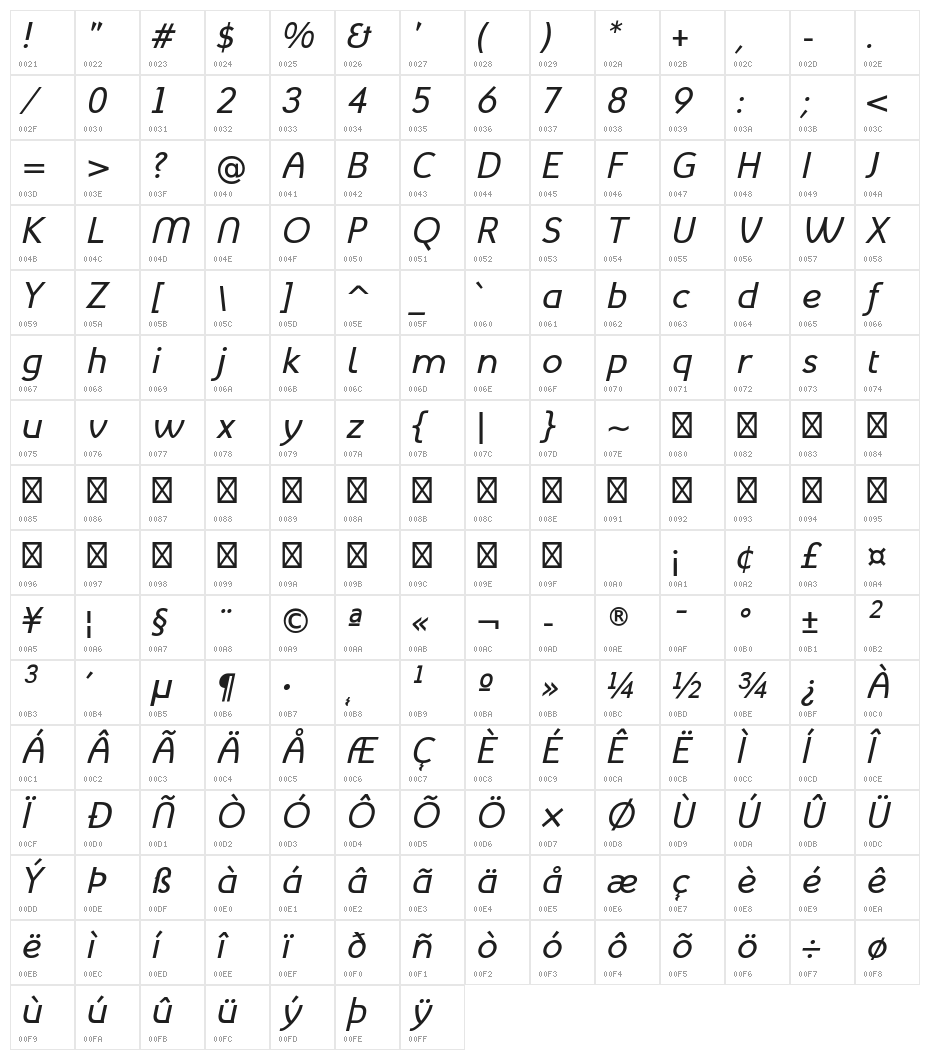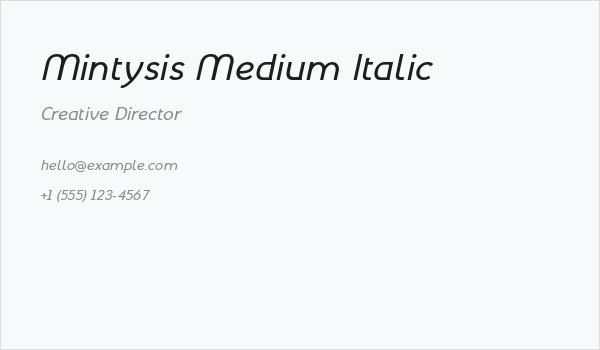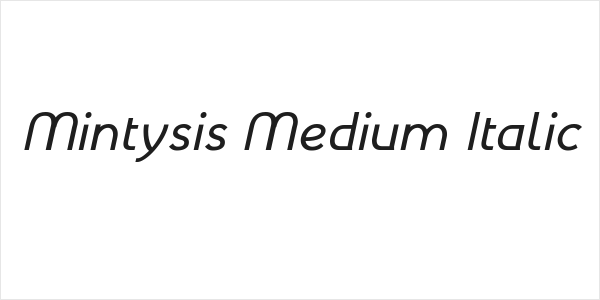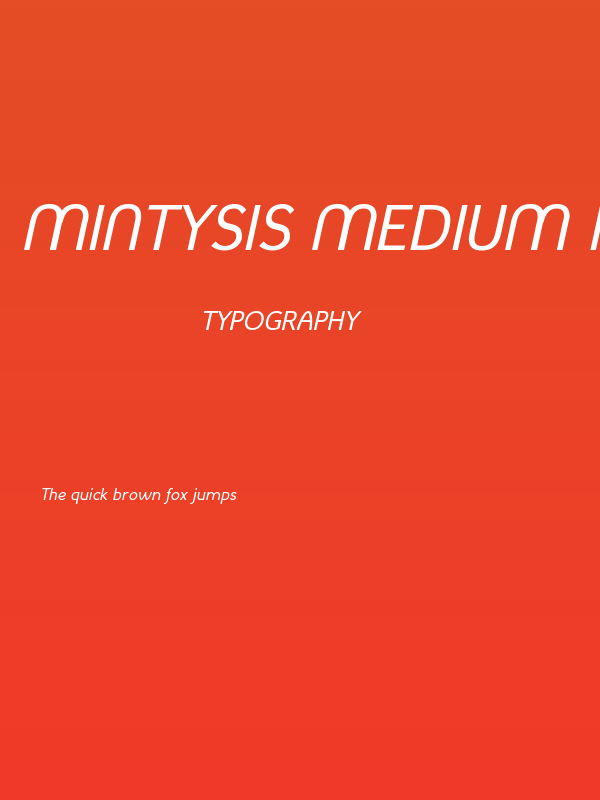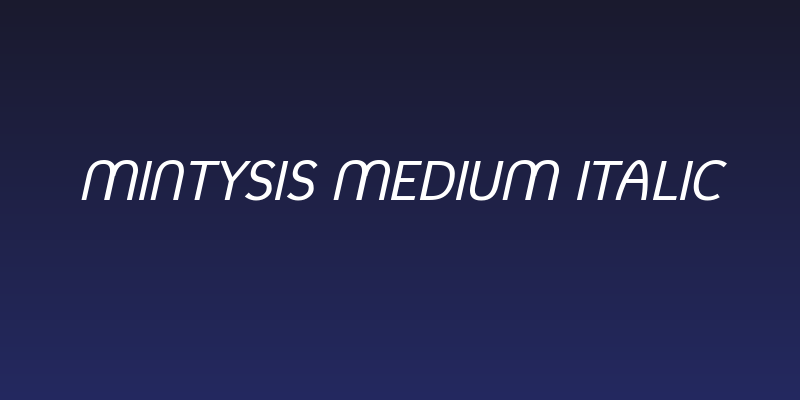
Mintysis Medium Italic Font
Mintysis Medium Italic Description
This font features a sleek and modern design with a slight italic slant, giving it a dynamic and forward-moving appearance. The characters are well-proportioned with a consistent stroke width, providing a clean and professional look. The uppercase and lowercase letters maintain a harmonious balance, while the numerals are clear and easy to read. Special characters are included, enhancing its versatility for various applications. The overall style is contemporary, making it suitable for a wide range of design projects.
| Proposed Projects | Ideal for branding, advertising, digital media, and editorial design. |